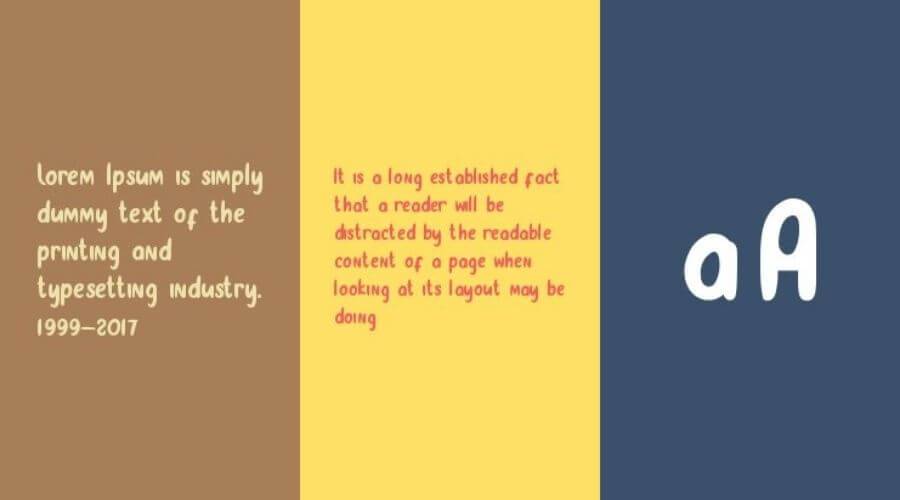
About The Honey Cute Script Font
Honey Cute Script is a professional-looking script font. Prast Art created the typeface. It is free to use for personal purposes. All uppercase and lowercase letters and a few special characters are included in the font. The typeface comes in two different formats: OTF and TTF. The typeface is compatible with both PCs and Macs, so you don’t have to worry about which device you’re using. Many designers claim that some fonts are difficult to install; however, this font is special.
Honey Cute is a handwritten typeface that is sweet and inviting. Its distinct style makes it extremely adaptable and suitable for a wide range of designs. Take inspiration from its genuine feel and utilize it to produce stunning artwork! The font has a sweet feel about it. So, if you’re a girl thinking of starting an online or offline store, you should give this font a try. For your brand, you may use it to create wallpaper, posters, shopping bags, and business cards.
StyleScript, calligraphy.